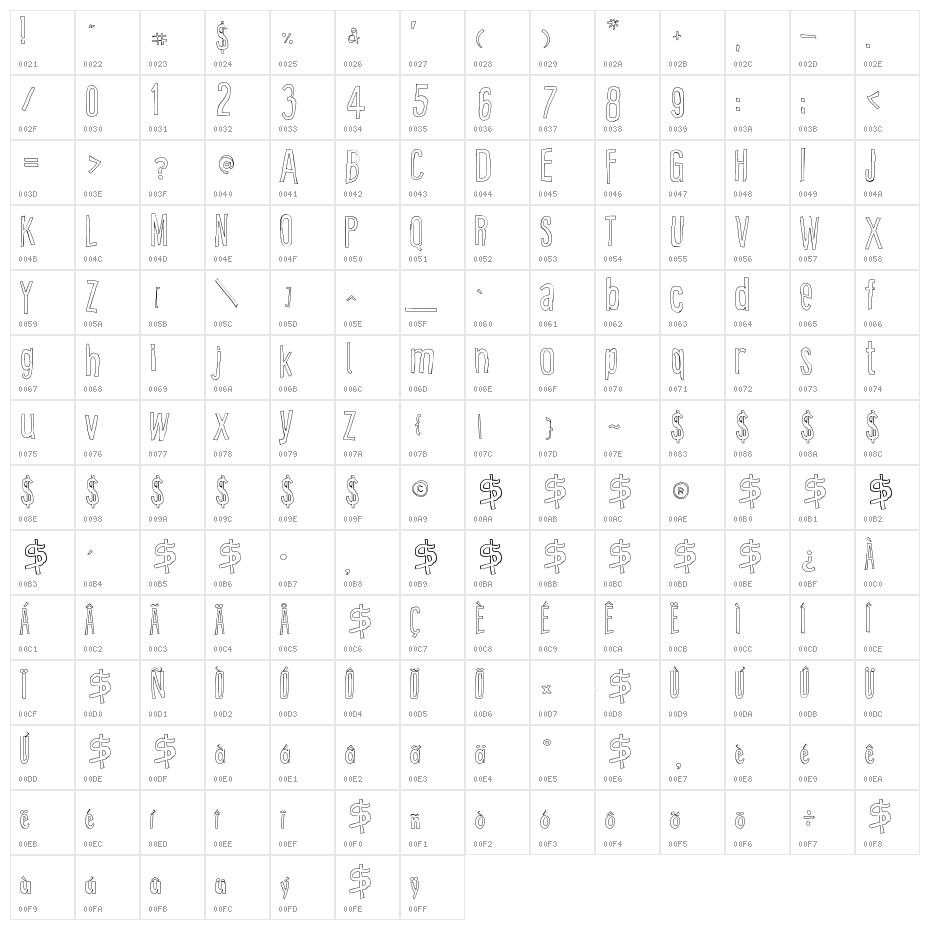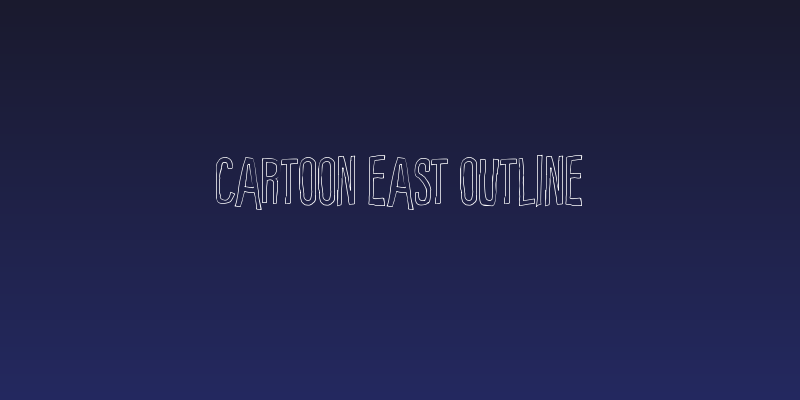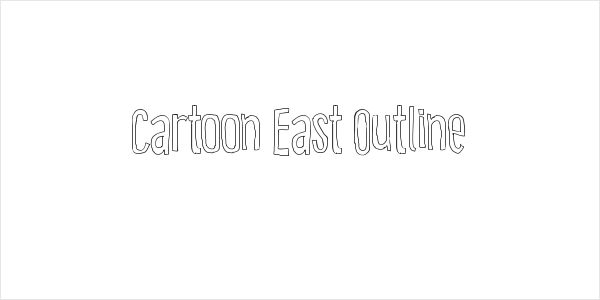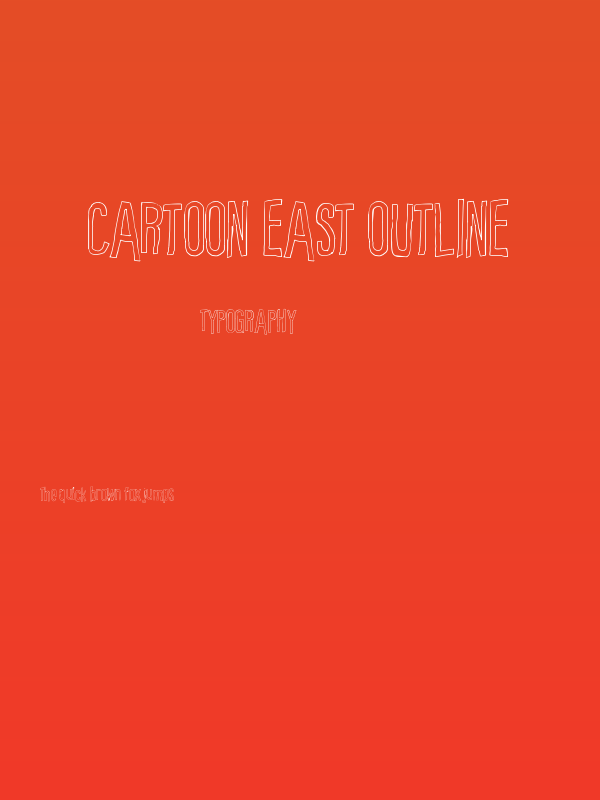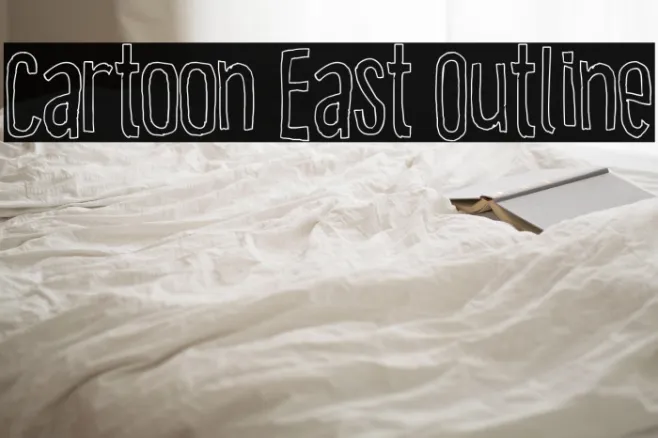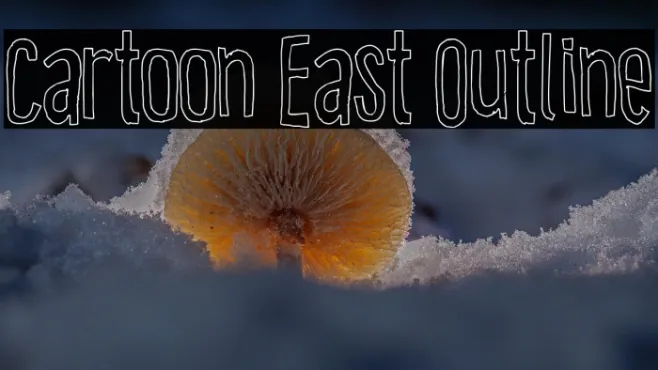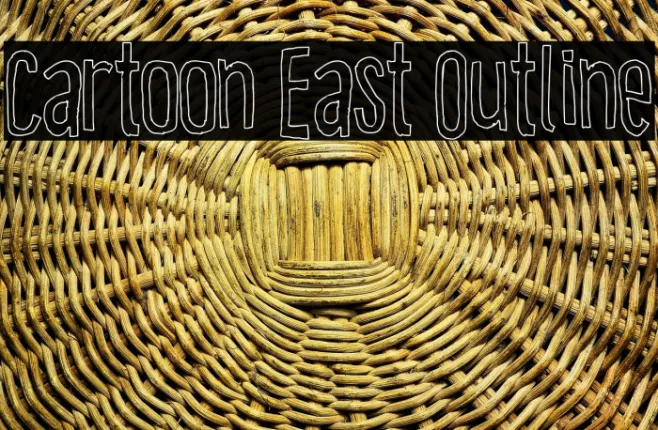
Cartoon East Outline Font
Cartoon East Outline Description
This font features a playful and whimsical outline style, characterized by its hand-drawn appearance. The letters have a casual, cartoonish feel with uneven lines that give them a dynamic and lively look. The uppercase and lowercase letters maintain a consistent height, while the numbers and special characters follow the same playful design. The strokes are thin, creating an airy and light impression, making it suitable for informal and fun projects. The overall design is approachable and friendly, perfect for capturing attention in a lighthearted manner.
| Overall Style | Whimsical |